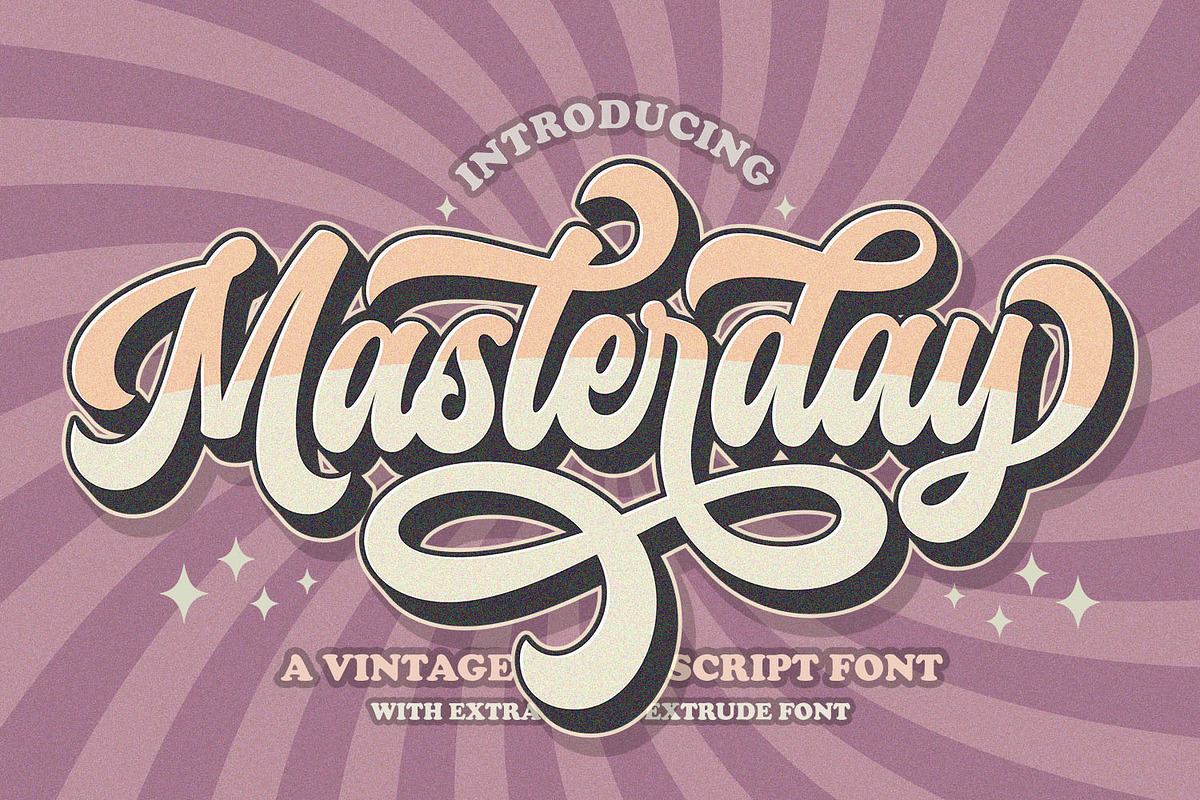
Retro Masterday - Vintage Font Free Download
Retro Masterday - Vintage Font Free Download is a stylish and nostalgic typeface that channels the spirit of classic retro design. With its bold, clean lines and vintage flair, this font is perfect for creating striking logos, retro posters, branding materials, and social media content. Whether you’re designing for a retro-themed event, crafting a product label, or working on a vintage-inspired project, this font brings a timeless appeal with modern legibility. Retro Masterday - Vintage Font Free Download allows you to explore its unique design in personal projects before purchasing a commercial license. Add a touch of vintage charm to your designs with this beautifully crafted, classic font that stands out with its retro style and impact.